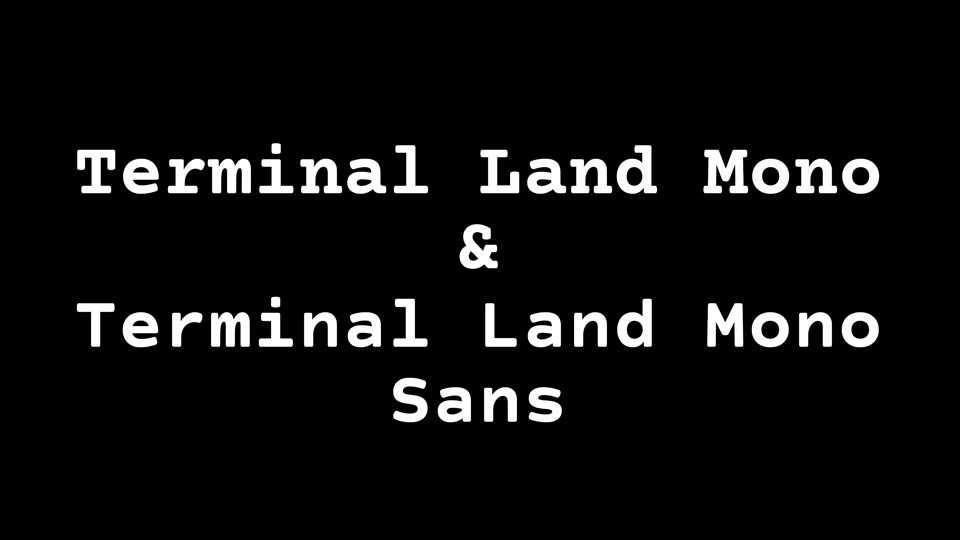
Download Terminal Land Mono typeface, a monospaced font family with a soft, rounded construction. Terminal Land Mono comes with Slab and Sans typefaces in four styles.
Designer: Neatnik